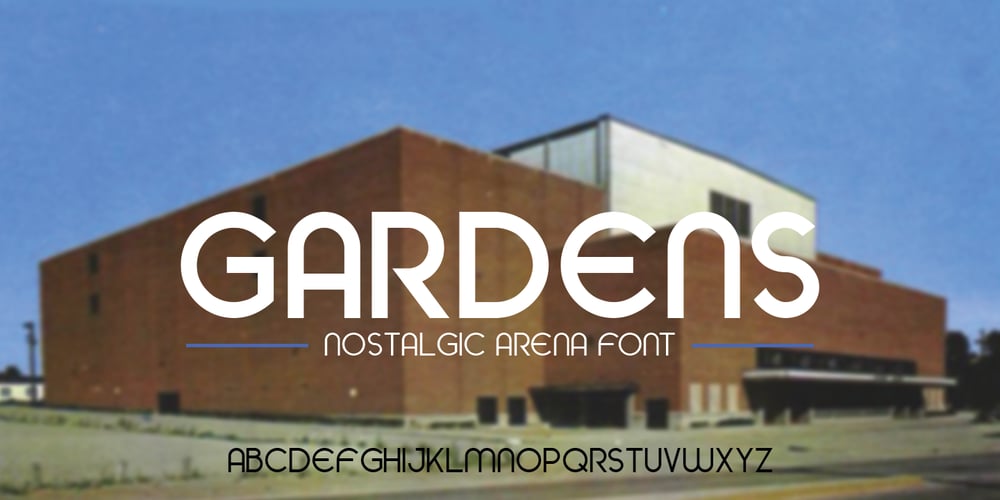
Gardens Font Family was designed by Doug Burns and published by The Rivertown Inkery. Gardens contains 7 styles and family package options. Gardens is a nostalgic arena font. Inspired by a soon-to-be demolished arena, this font was created to capture the memories and good times this building once contained. Upon hearing the news of the demolition, our team was struck with sadness and nostalgia. As youngsters we can recall attending a wide variety of events, such as hockey games, pro wresting and the circus. Our hope is that others can share in our nostalgic love of this once prominent arena. With curvy retro styling Gardens is unique and will fit in with many retro and vintage logos and design. Wether its t-shirts, posters or digital, Gardens will surely make your work stand out!